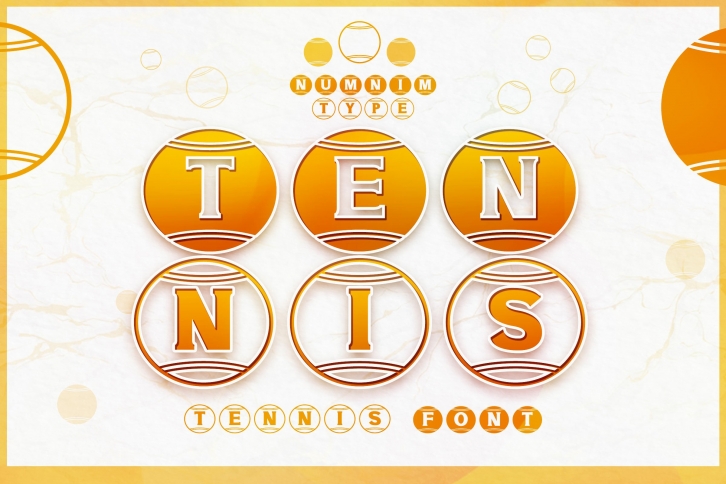
Tennis is a trendy and unique font with an authentic style. It was designed by numnimtype and it's a great choice for creative people who need such a font. It was released on August 13, 2021 and the file size is 16.24 MB. Tennis will add an organic vibe to any design idea!